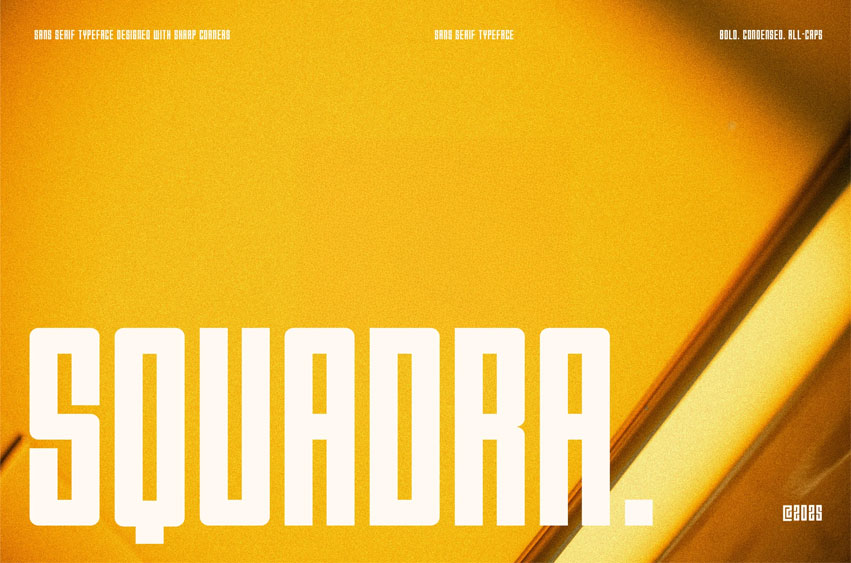
Squadra Bold Font
Squadra Bold Font is a bold, uppercase display font with a tall, condensed build and strong geometric presence. Perfect for making a statement in posters, titles, branding, and editorial layouts, Squadra delivers high-impact typography with a sharp, modern edge.